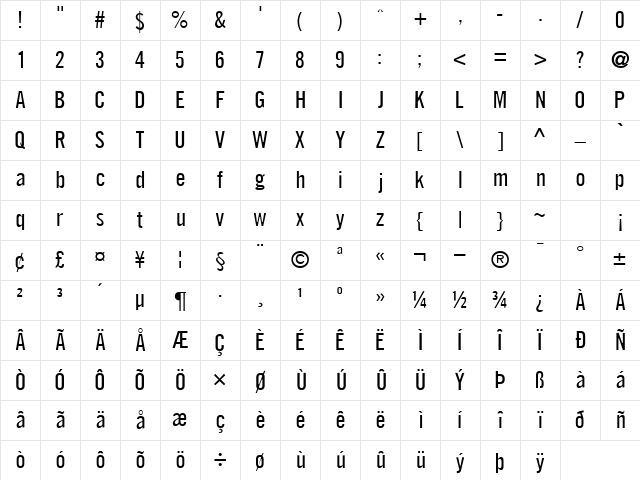
CommerceCondSSK Regular
Design Context for CommerceCondSSK
CommerceCondSSK is a composed and adaptable typeface that performs quietly and consistently across a wide range of design contexts. Its narrow stance lets it pack a punch even in space-constrained designs.
Pro Tip: Use CommerceCondSSK in both headline and body roles to test its range before committing to a single application.